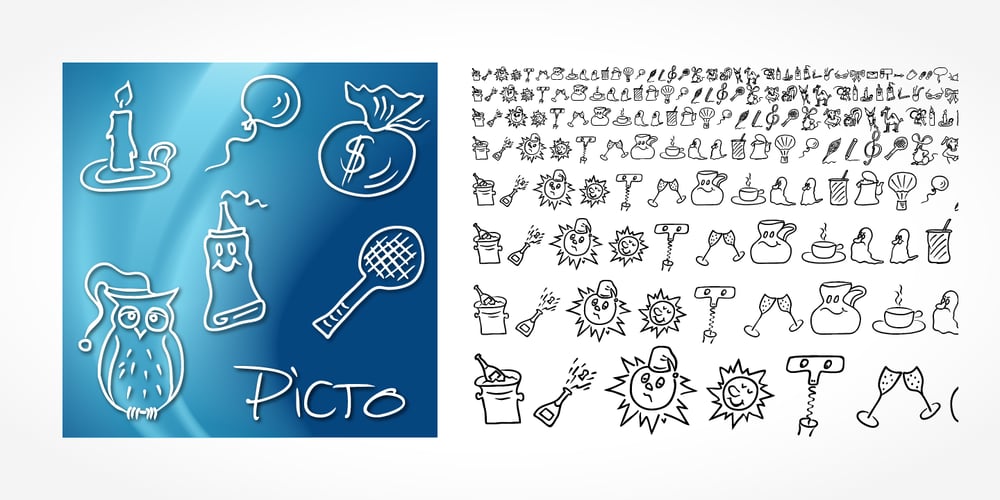
Picto Handwriting Font Family was designed by published by SoftMaker. Picto Handwriting contains 1 styles and family package options. Digitized handwriting fonts are a perfect way to give documents the “very special touch”. Invitations look simply better when handwritten than when printed in bland Arial or Times New Roman. Short handwritten notes look authentic and appealing. There are numerous occasions where handwritten text makes a better impression. “Picto Handwriting” comes with beautiful handwritten pictograms that let you quickly spruce up your designs.